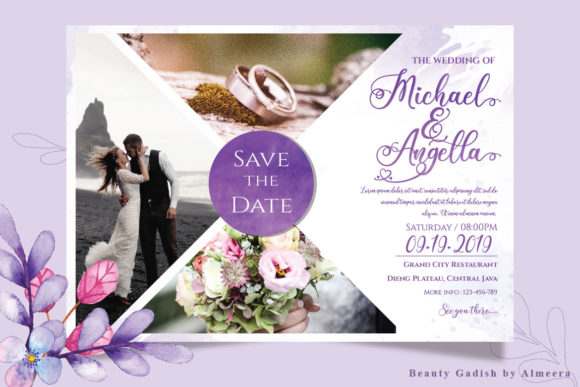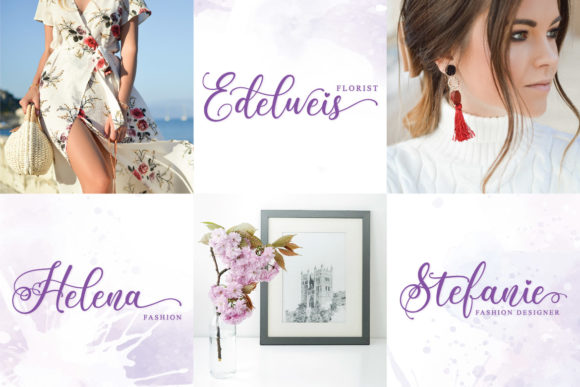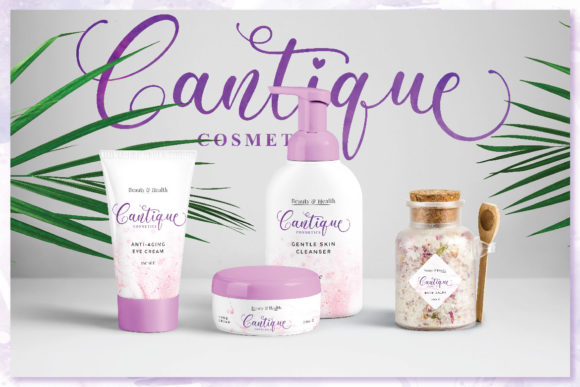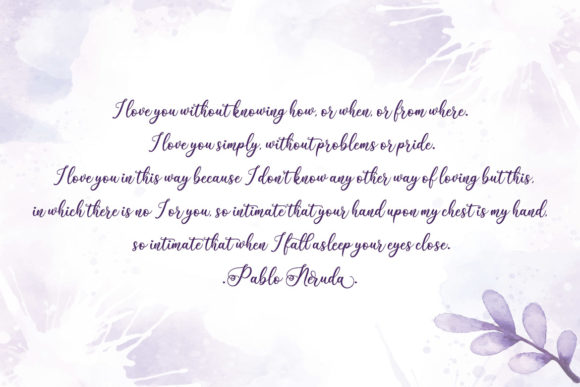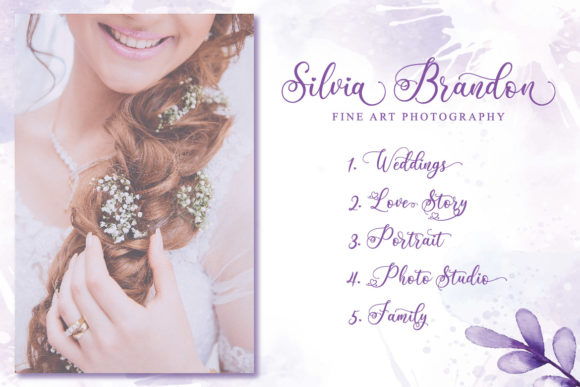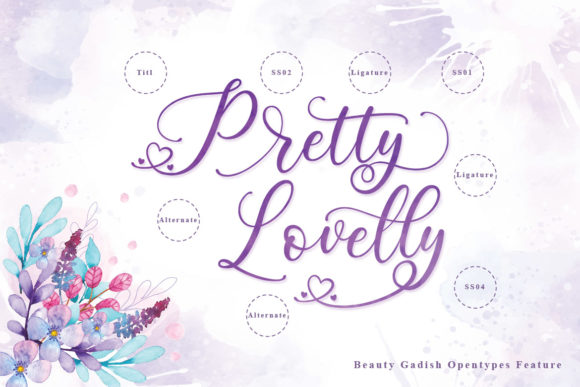
Introducing Beauty Gadish Font: Elevate Your Designs with Luxurious Flair
In the world of typography, few fonts manage to capture the essence of luxury and elegance as effectively as Beauty Gadish. This stunning script font is designed to add a touch of sophistication and glamour to any design project, making it a must-have for designers, crafters, and anyone looking to elevate their creative work.
What is Beauty Gadish Font?
Beauty Gadish is a lovely script font that features beautiful swashes, meticulously crafted to bring a sense of opulence and refinement to your designs. Its flowing lines and intricate details make it perfect for projects that demand a high level of elegance, such as branding, packaging, wedding invitations, and more.
Key Features of Beauty Gadish Font
- Luxurious Swashes: The font’s beautiful swashes add a decorative touch, allowing you to create stunning designs that stand out.
- Elegant Script: Beauty Gadish’s script style exudes sophistication, making it ideal for high-end designs.
- Versatile: This font can be used for a wide range of projects, from digital designs to print materials.
Who Can Benefit from Beauty Gadish Font?
Beauty Gadish is a versatile font that can benefit a wide range of professionals and creatives, including:
- Graphic Designers: Looking to add a luxurious touch to their branding, packaging, or advertising designs.
- Wedding Planners and Stylists: Seeking elegant fonts for wedding invitations, programs, and other stationery.
- Crafters and Makers: Creating handmade products, such as jewelry, crafts, or artisanal goods, and wanting to add a touch of sophistication to their packaging or marketing materials.
- Digital Artists and Illustrators: Needing a beautiful font to complement their digital art.
How to Use Beauty Gadish Font Effectively
To make the most of Beauty Gadish, consider the following tips:
- Pair with Simpler Fonts: Combine Beauty Gadish with simpler fonts to create a striking contrast and add visual interest to your designs.
- Use for Headlines and Titles: The font’s luxurious feel makes it perfect for headlines and titles, where you want to grab attention and convey sophistication.
- Experiment with Swashes: Take advantage of the font’s beautiful swashes to add a decorative touch to your designs.
Beauty Gadish Font is a stunning script font that can elevate your designs with its luxurious flair. Its beautiful swashes, elegant script, and versatility make it a valuable addition to any designer’s or crafter’s toolkit. Whether you’re working on a high-end branding project, a wedding invitation, or a handmade product, Beauty Gadish is sure to add a touch of sophistication and glamour.